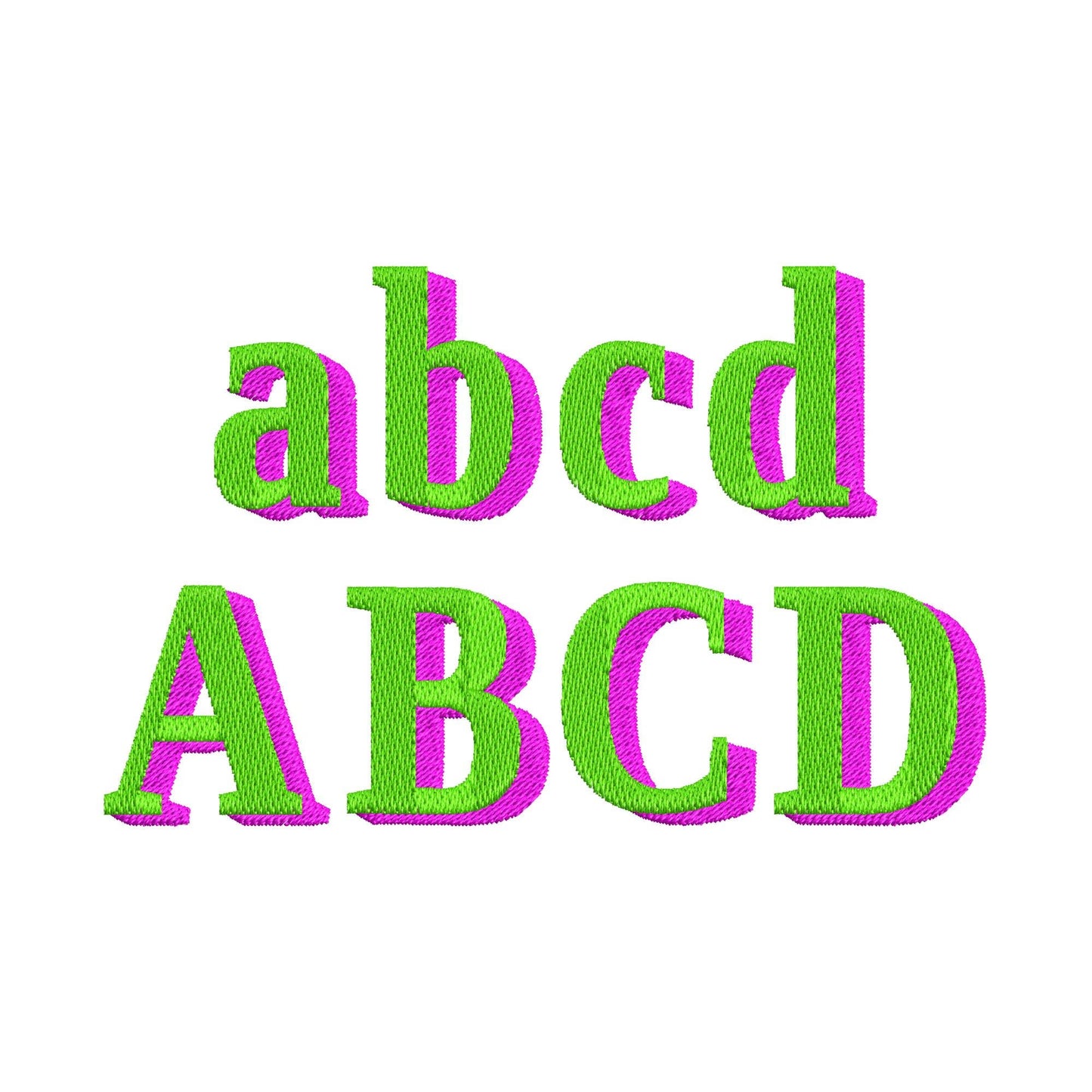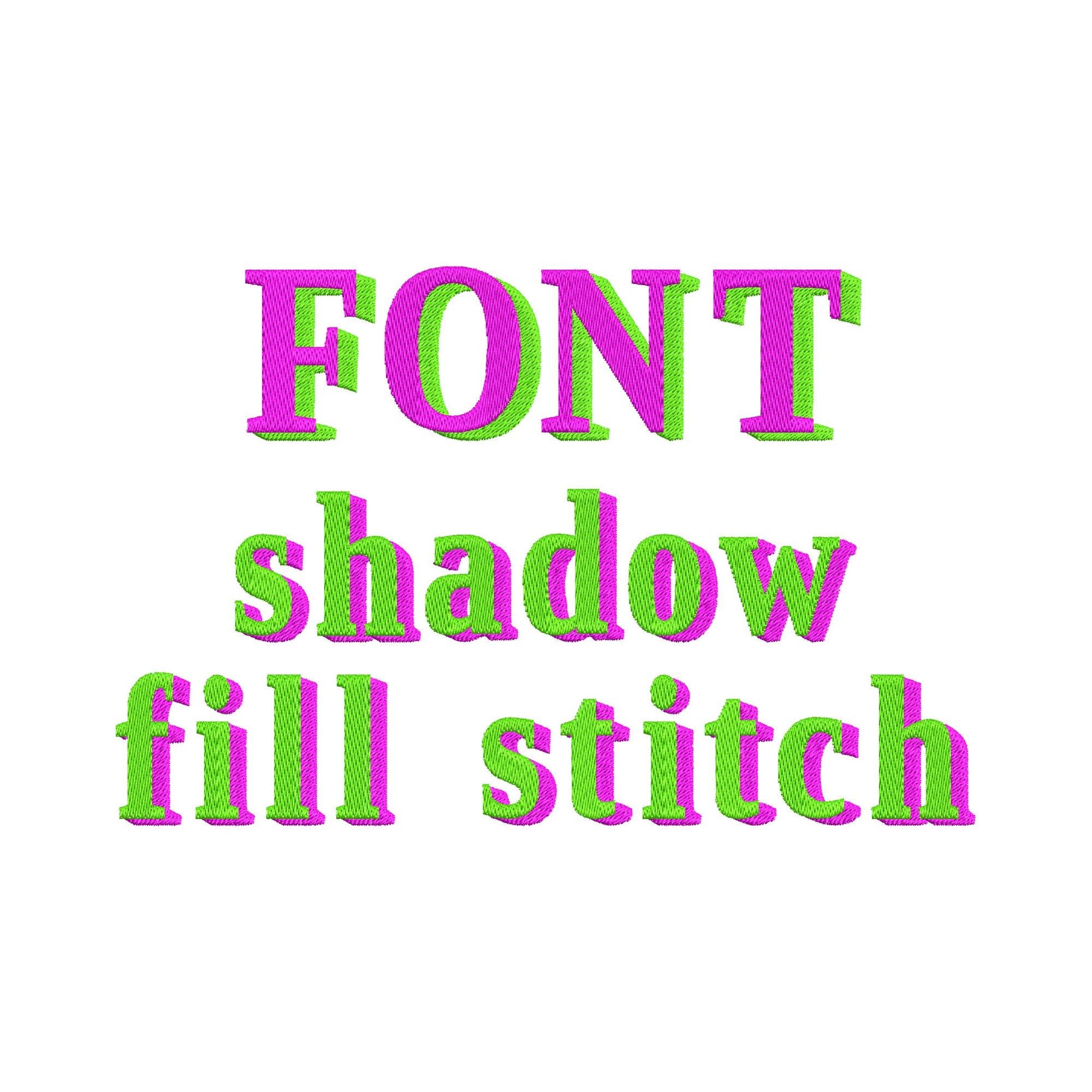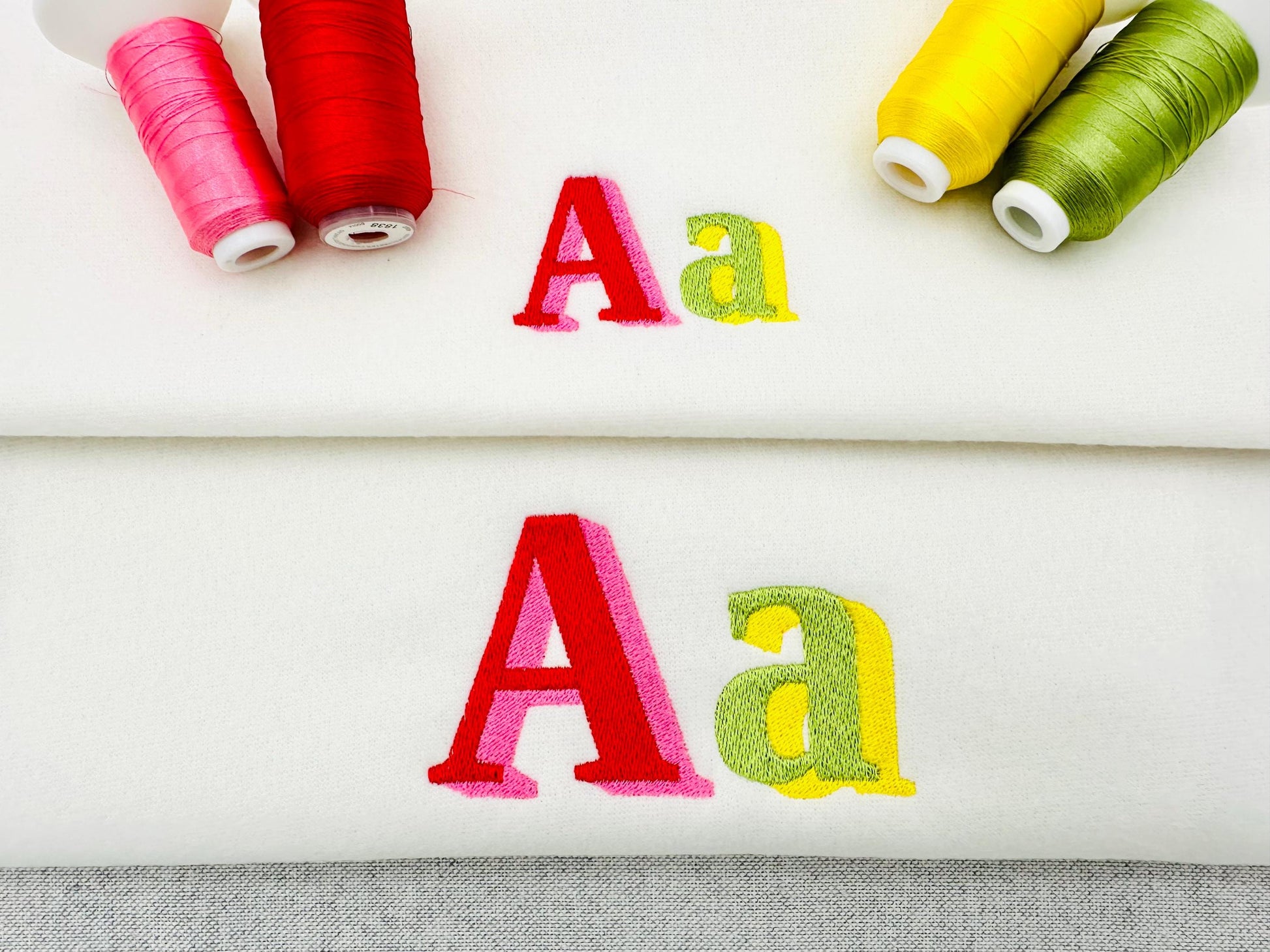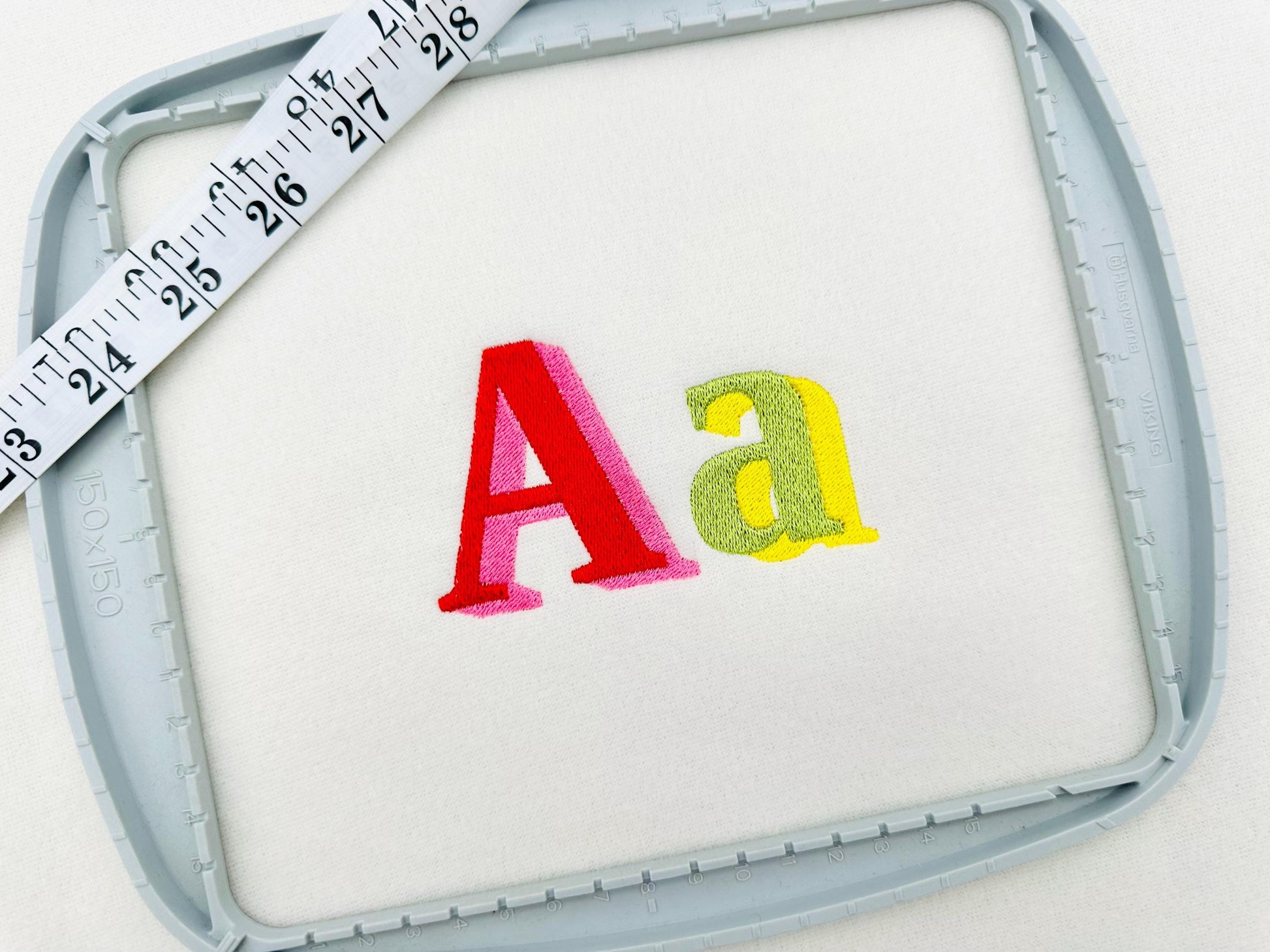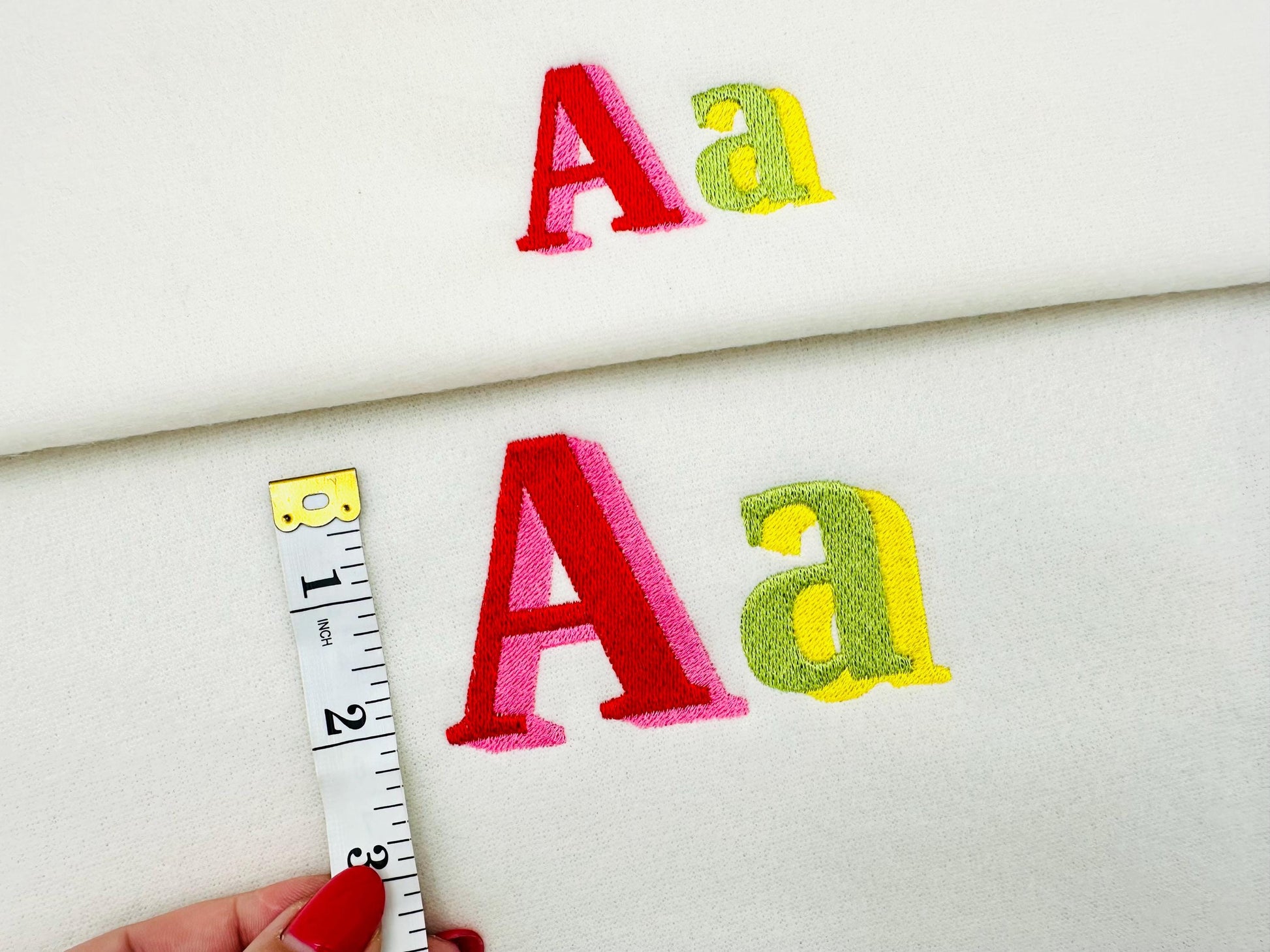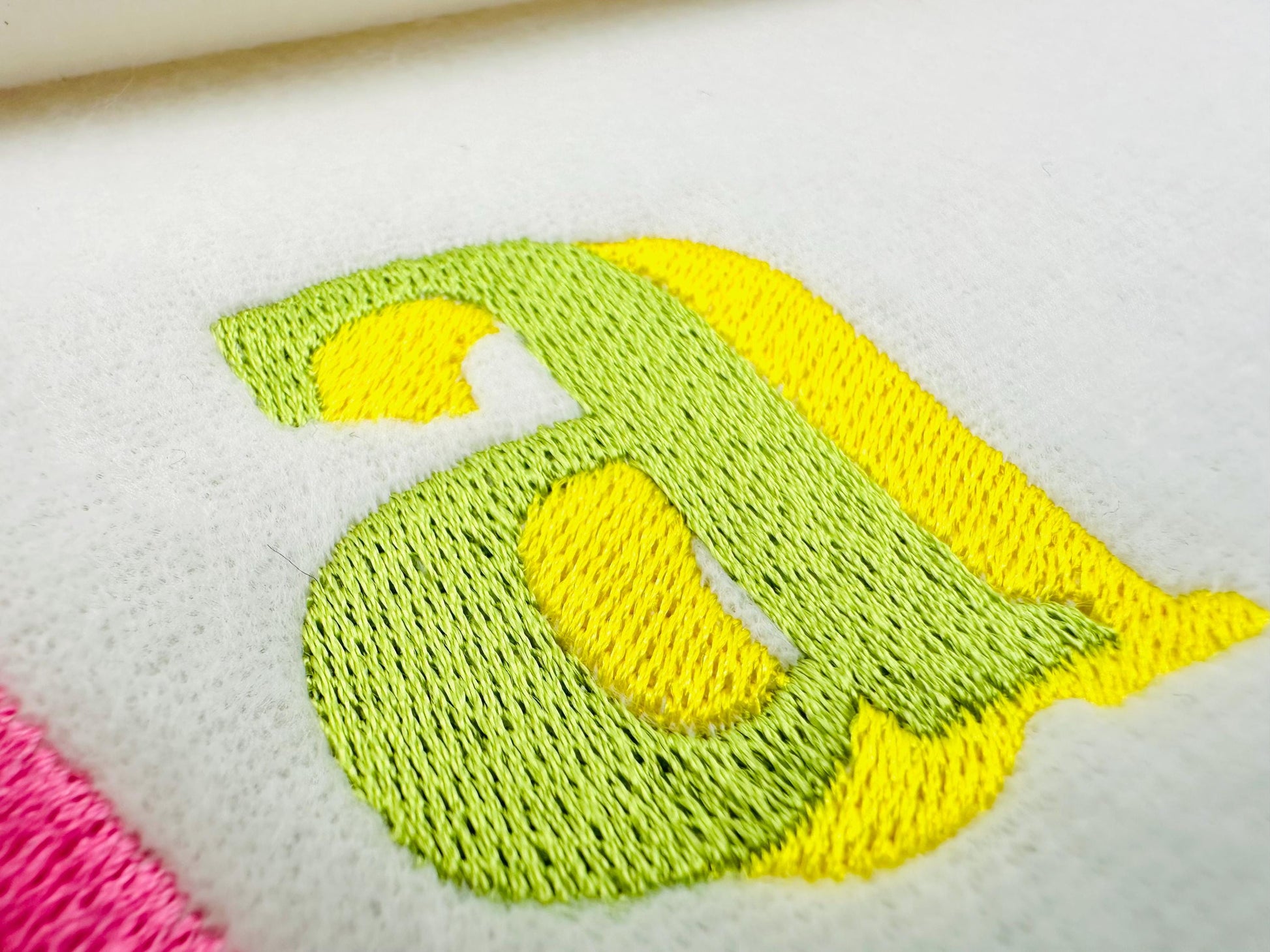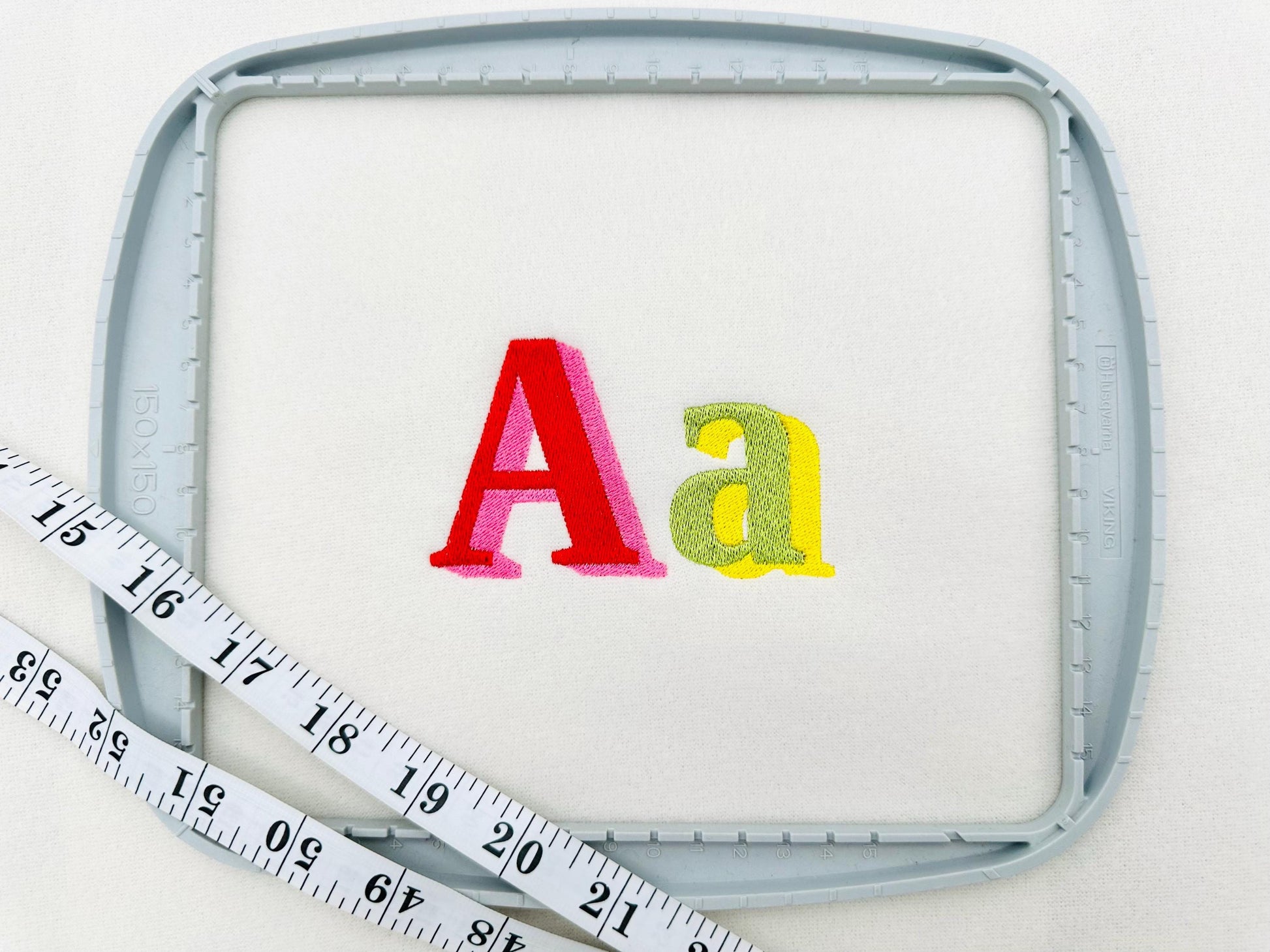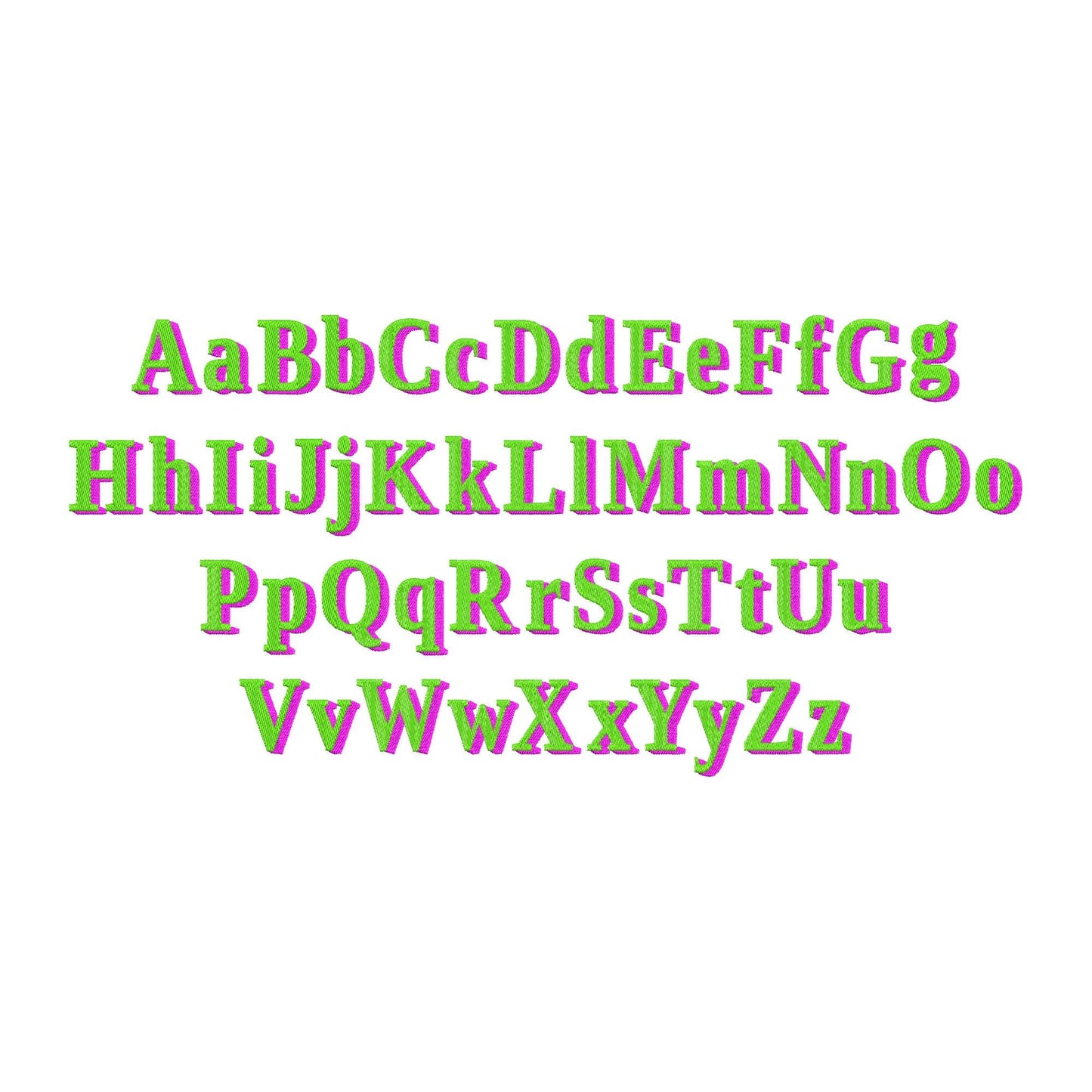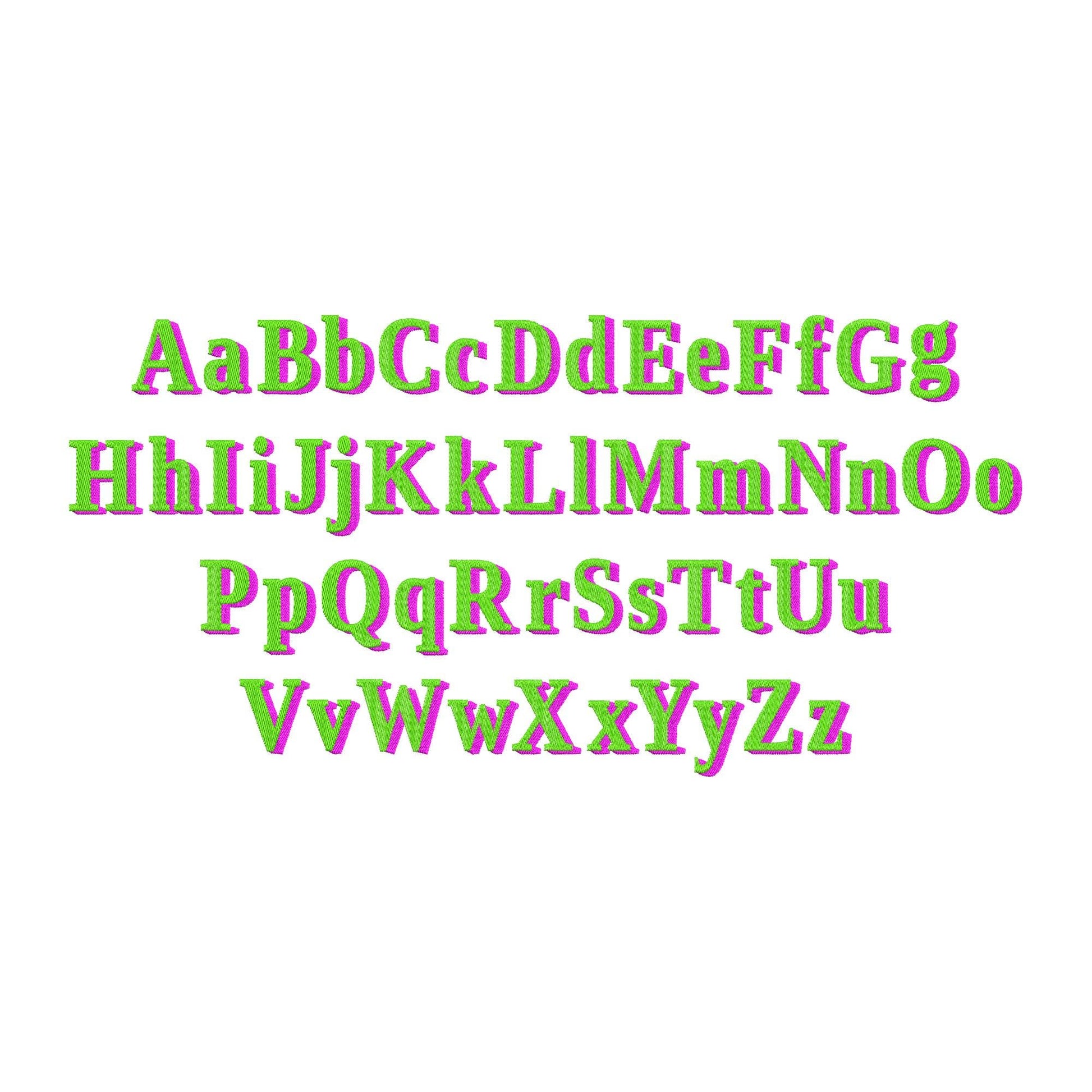
Shadow Varsity Font
The letters come in seven sizes: 0.9, 1.2, 1.4, 1.7, 2.1, 2.5 and 2.9 inches. Includes uppercase and lowercase letters.
- Shadow varsity font: uppercase and lowercase letters
- 7 letter sizes, 0.9 to 2.9 in